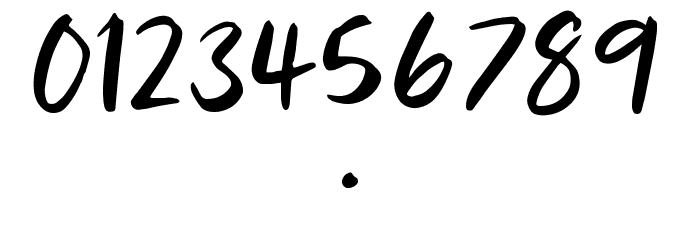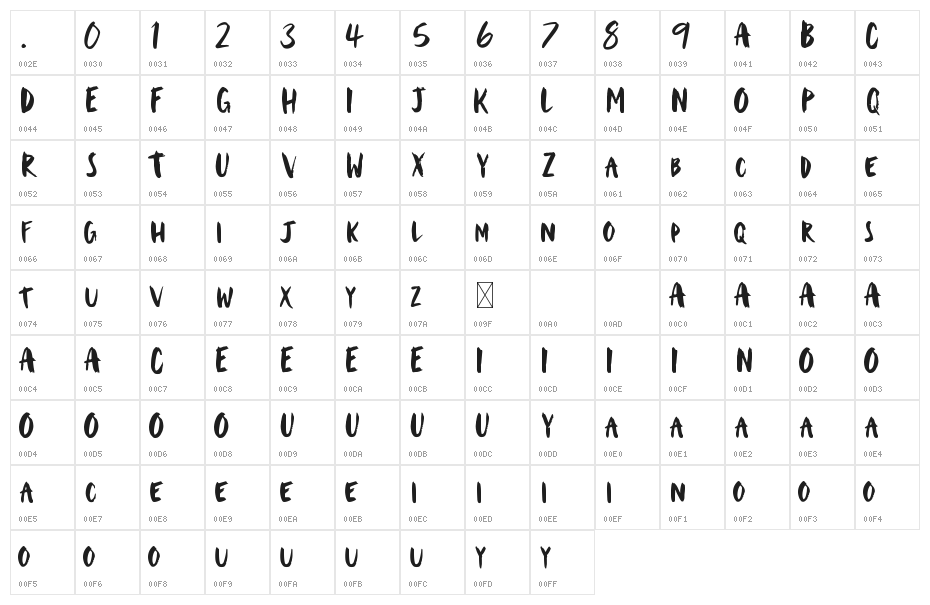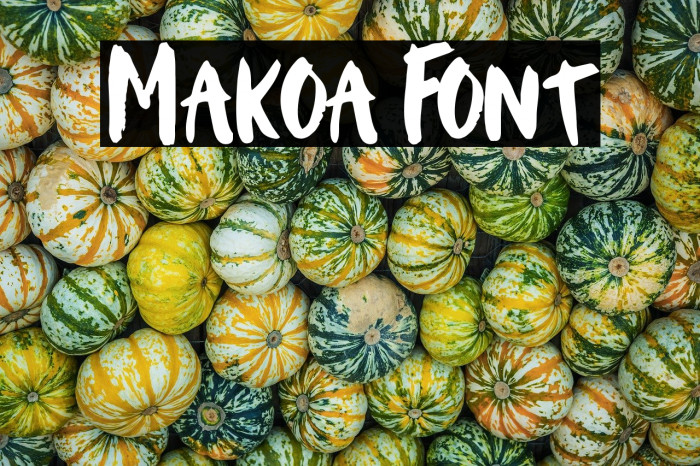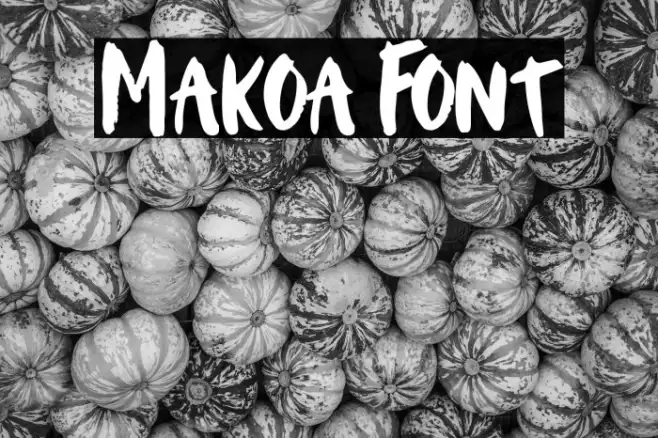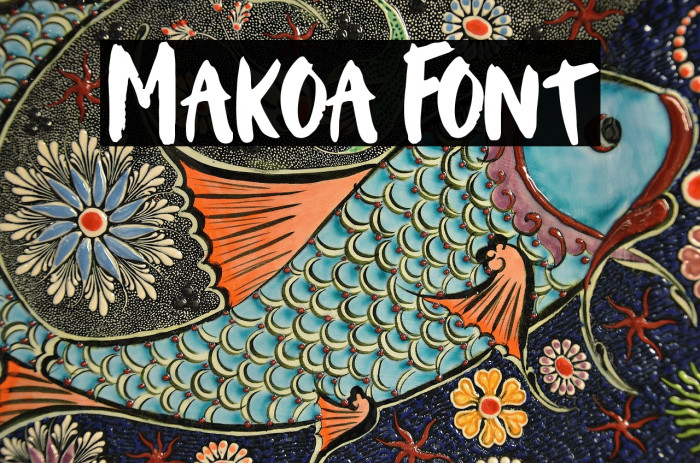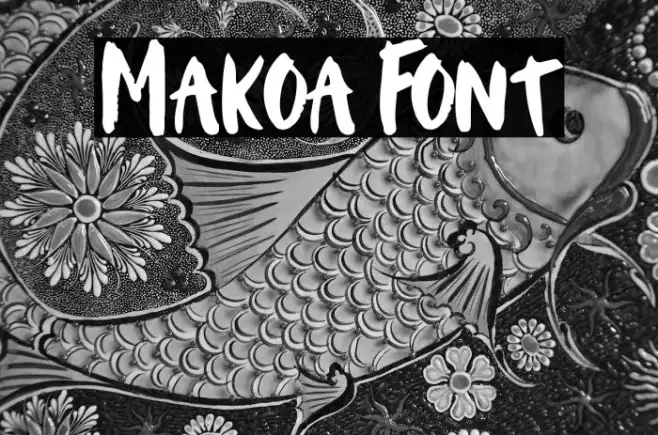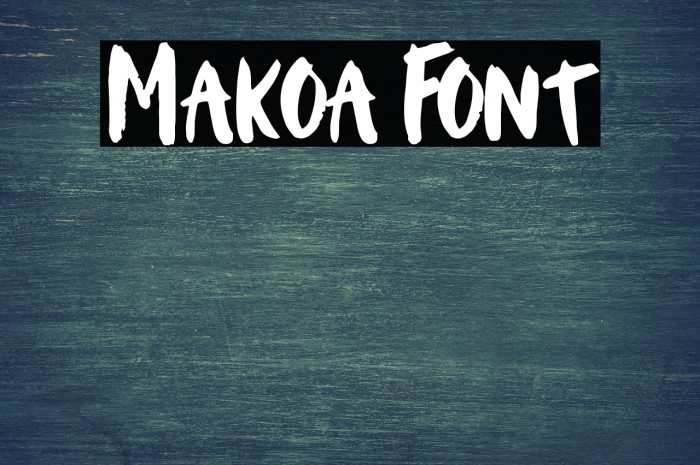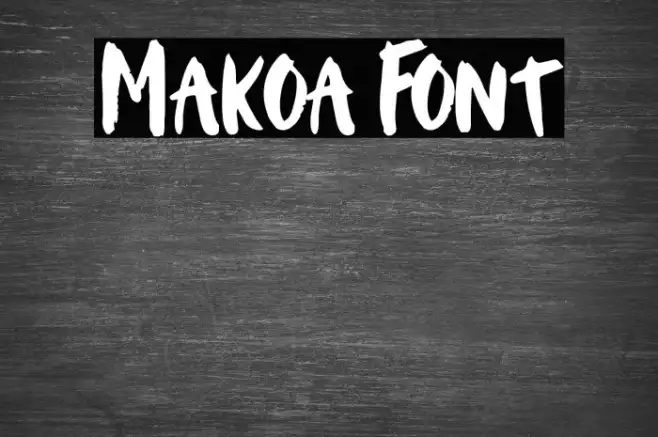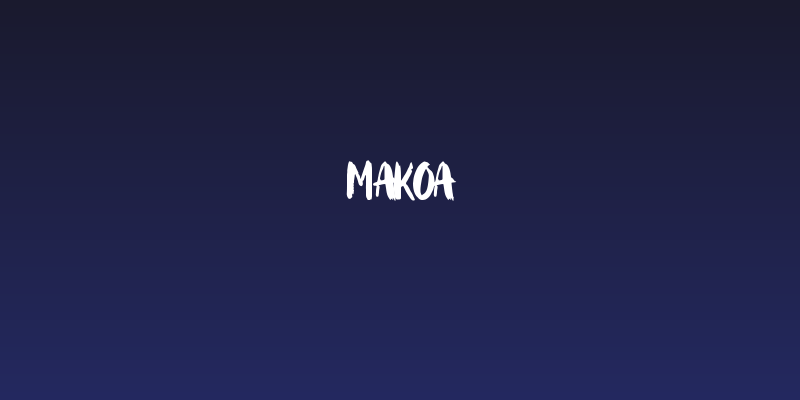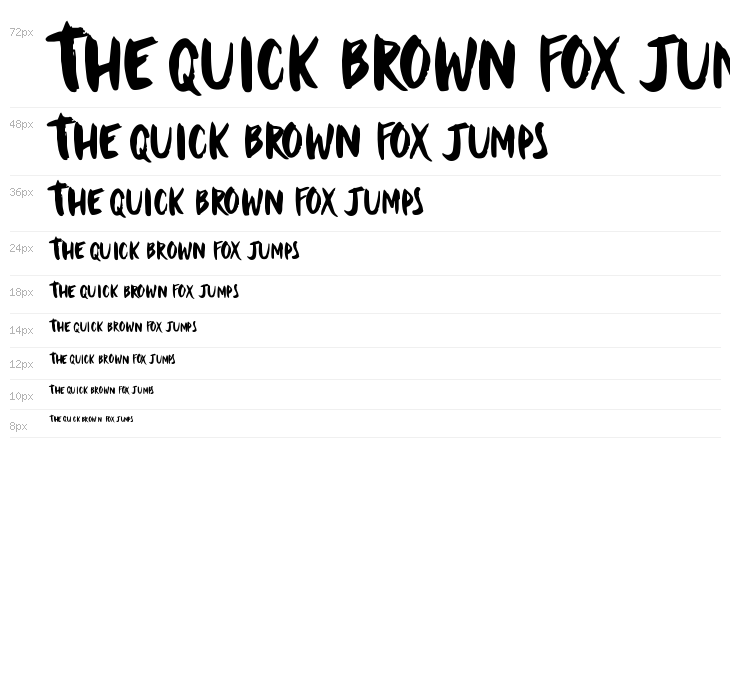
Makoa Font
Makoa Description
This font features a bold, expressive style with a hand-painted appearance. The strokes are thick and uneven, giving it a dynamic and energetic feel. The characters are slightly slanted, adding to the casual and informal vibe. The uppercase and lowercase letters maintain a consistent style, with rounded edges and varying stroke widths that enhance its artistic quality. The numbers follow the same aesthetic, ensuring uniformity across all characters. This font is ideal for projects that require a personal touch or a creative flair.
| Proposed Projects | Perfect for posters, branding, social media graphics, and creative projects that need a personal and artistic touch. |